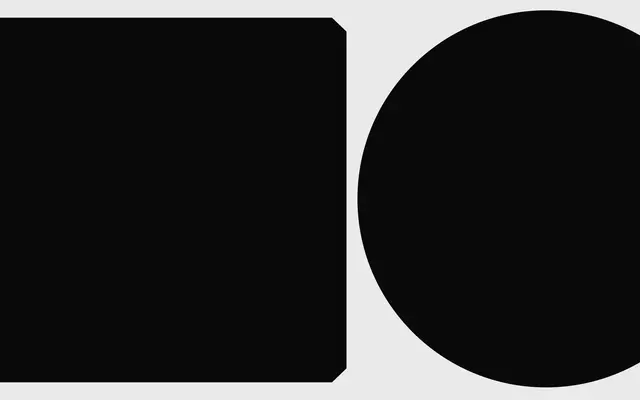
Varming
A2-Type · 2013
A geometric sans with chamfered corners, originally drawn in 2013 as a custom face for engineering consultancy Steensen Varming.
Originally a commission for Steensen Varming, an international building services and engineering consultancy, this geometric sans is defined by its delicately chamfered corners. The detail reads as sharp and distinctive at display sizes, softening to a rounded quality at text scales. Five weights from Regular to Heavy cover the range for corporate identity use.
Geometric construction with chamfered corners gives it a distinctive technical character; the chamfering softens at small sizes, placing it firmly in the geometric sans tradition with an engineered twist.